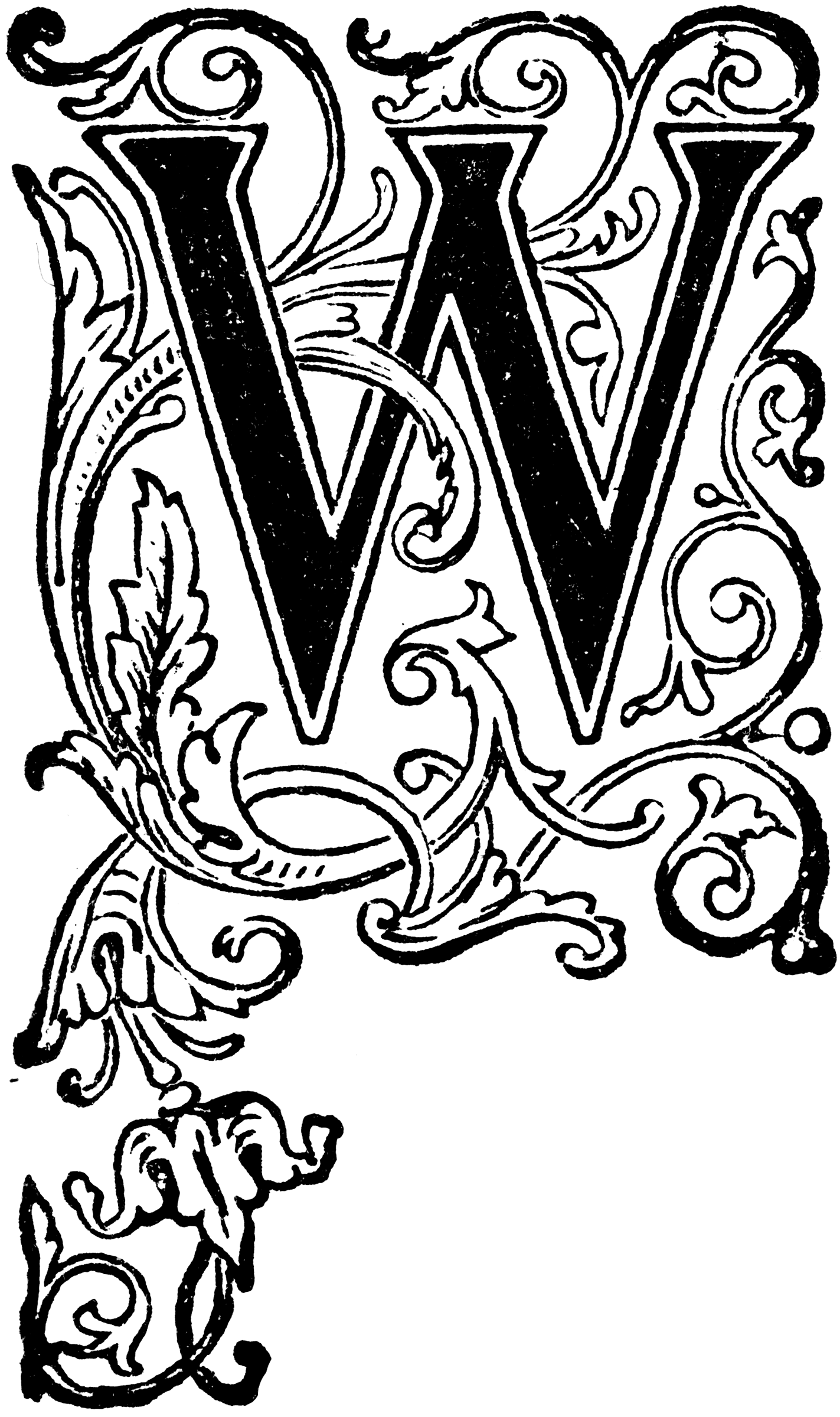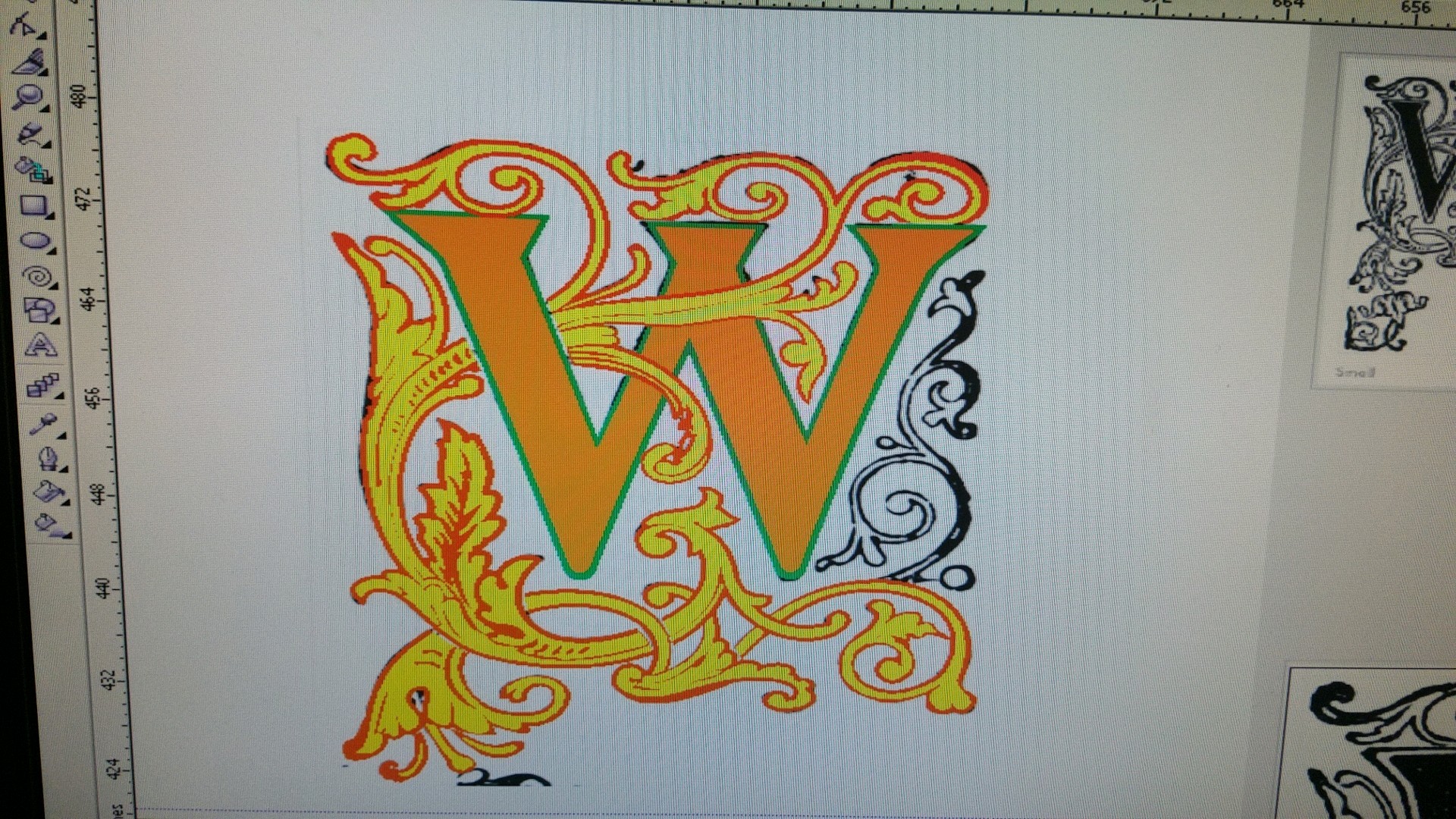
Need Help Font ID
Any ideas which font this is?
Far as I can tell, it's an ornamental drop cap from the late 19th century, and most books I've seen it in were printed in London. What do you need it for? Which letter(s) do you need? I might be able to find a name or a high-res scan of it in some old books I have.
A logo that I'll need to reproduce in Cut vinyl. UGHH!!After about 10 and a half hours I have almost got it redrawn. If you've got the W I could still use it .
Maybe next time before spending 10.5 hours, I would definitely look into vectorization services like the Vector Doctor on here... Has to be way cheaper than labor on an entire day.. haha.
I did tell the client that redrawing would be expensive. I've worked for them before they agreed to pay for it. Sometimes even though they agree spending the time is also an issue.
I doubt you'll find a cleaned up vector font of this, but here's a high-res image to help with your tracing.
Thanks so much! Its redrawn and they love it. I added more cuts where the filigree broke up the W because they requested it. I'll post photos of the completed work.